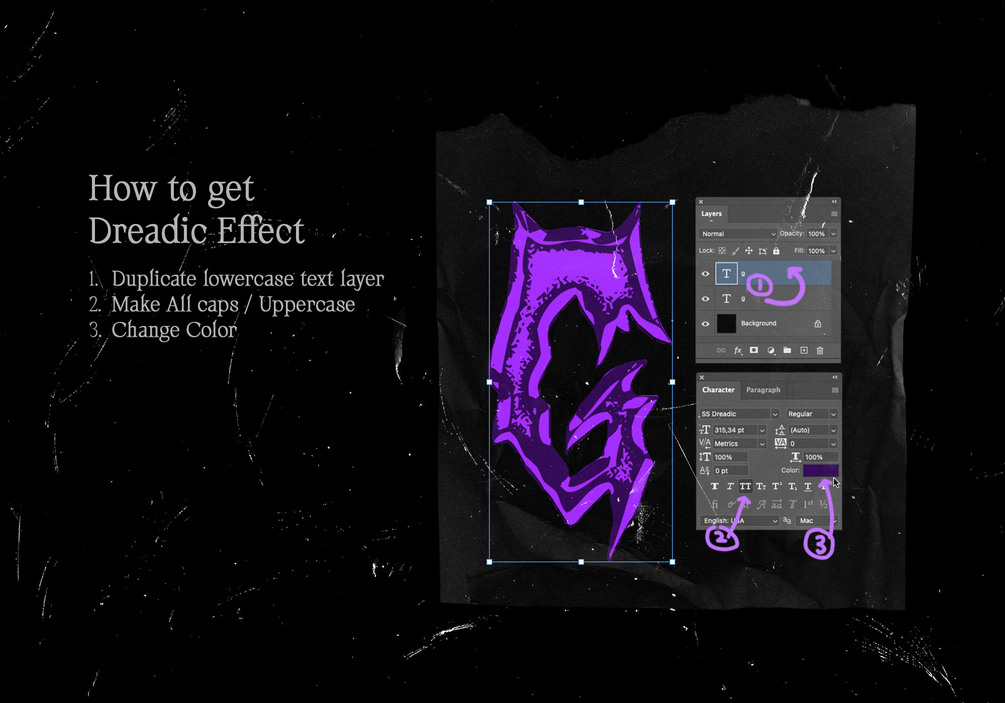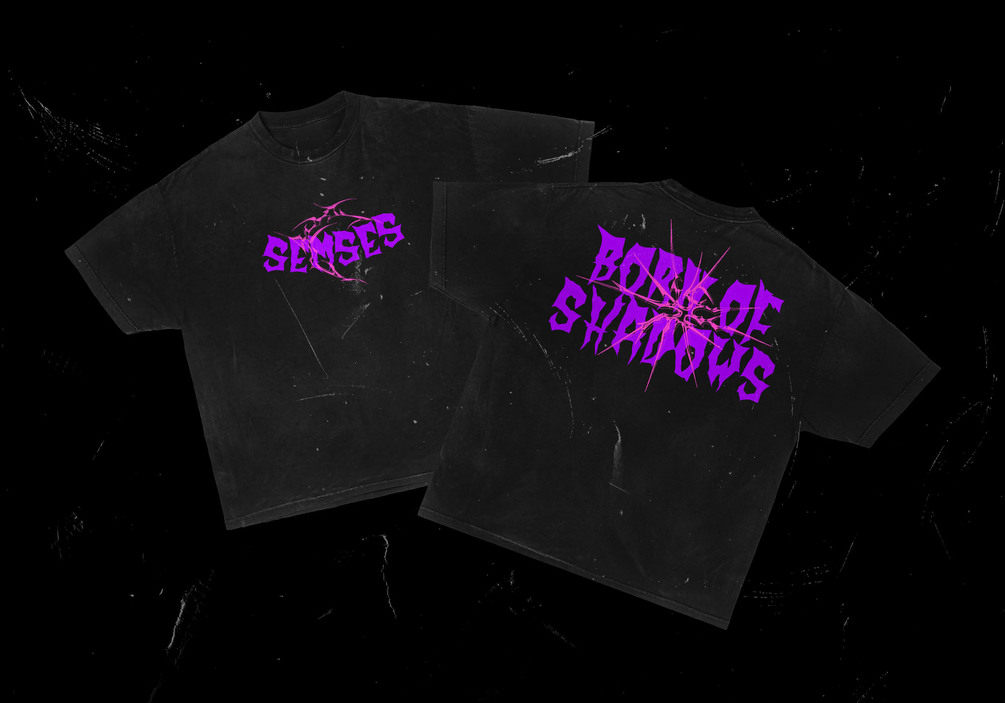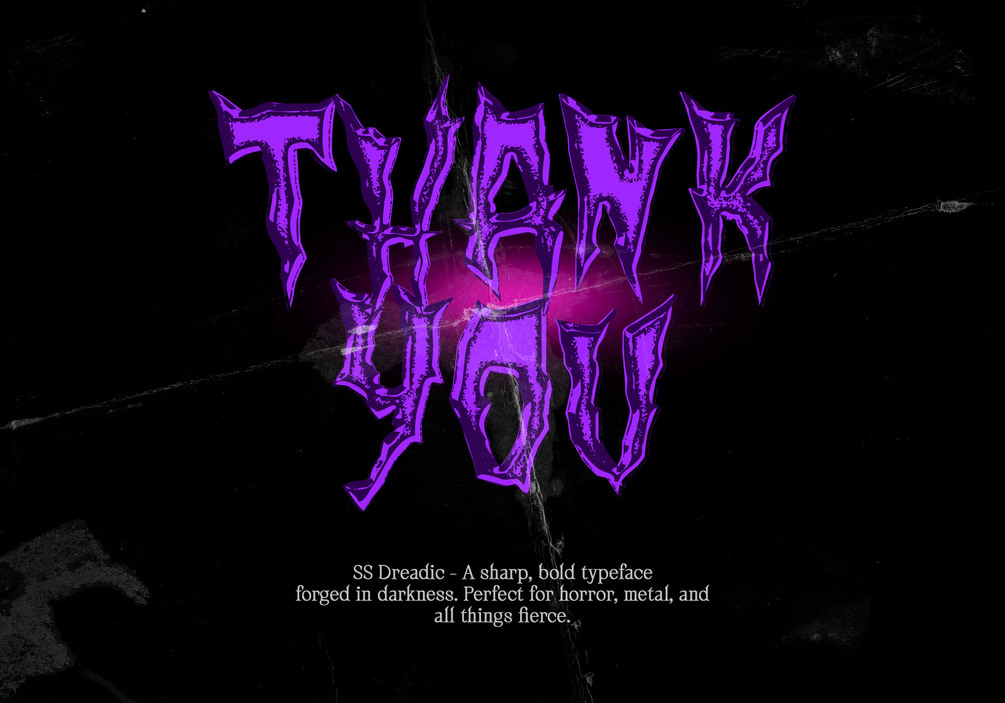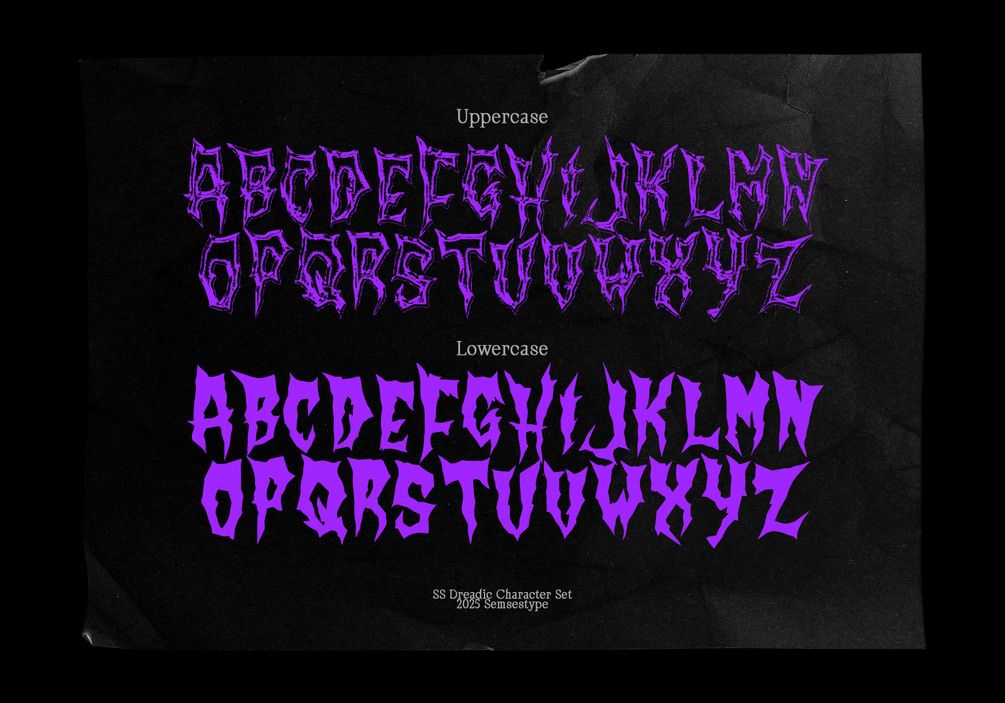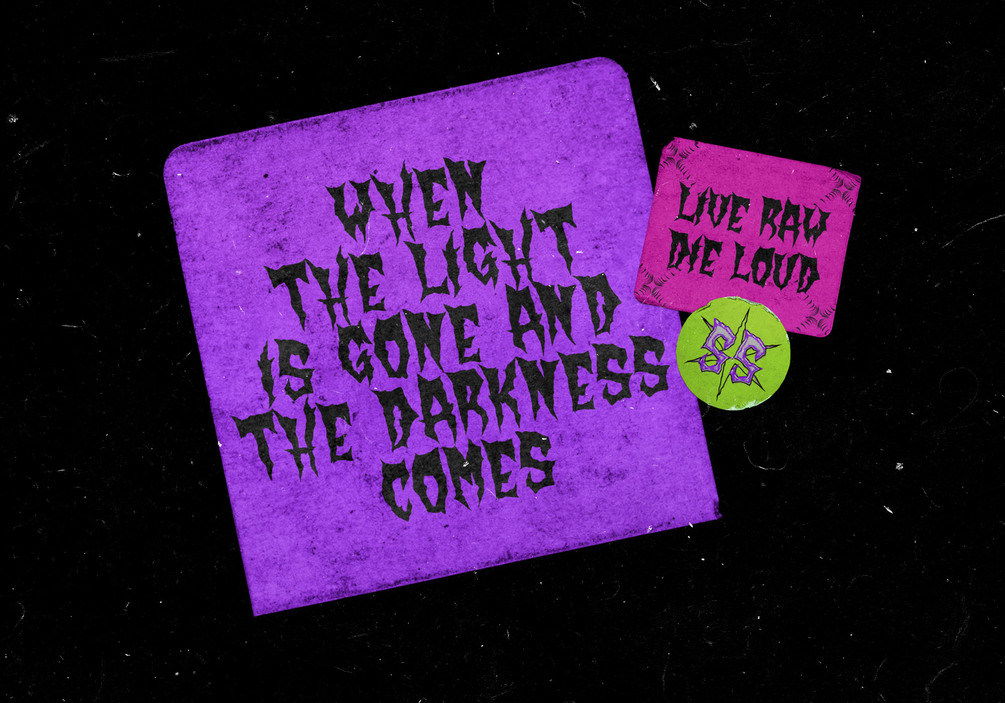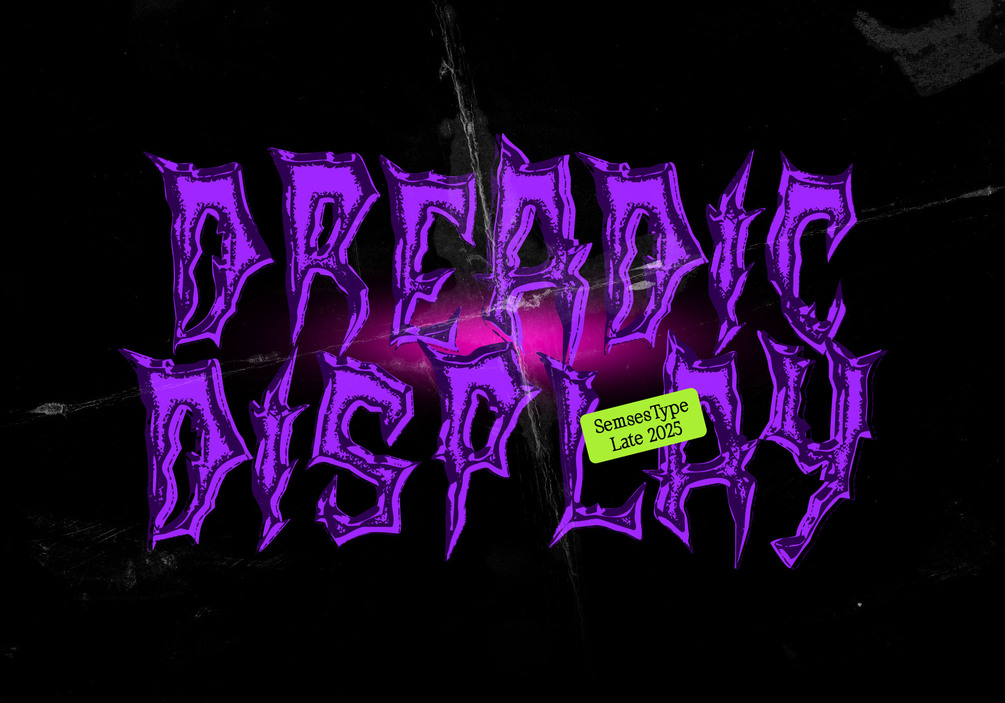
SS-Dreadic - Display Font
SS Dreadic - A sharp, bold typeface
forged in darkness. Perfect for horror, metal, andall things fierce.
Including ( 52 Glyph ) Uppercase & effect